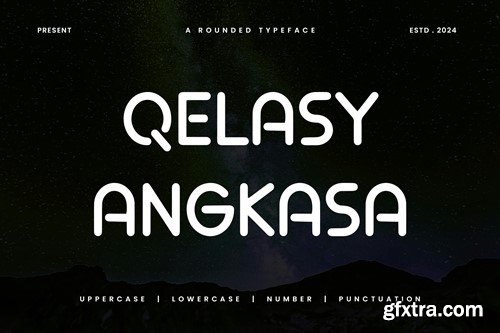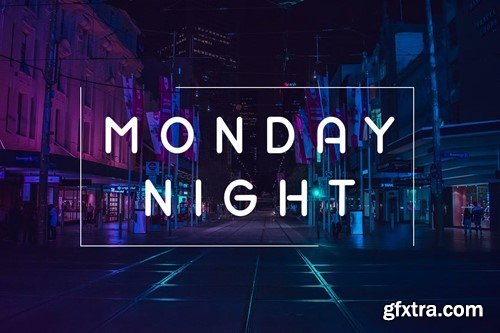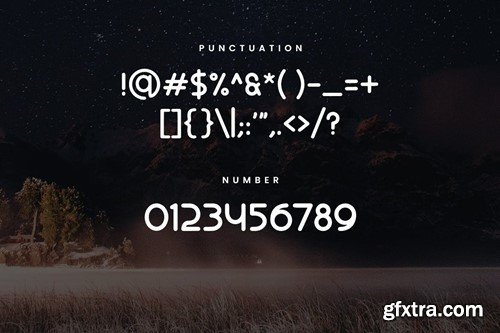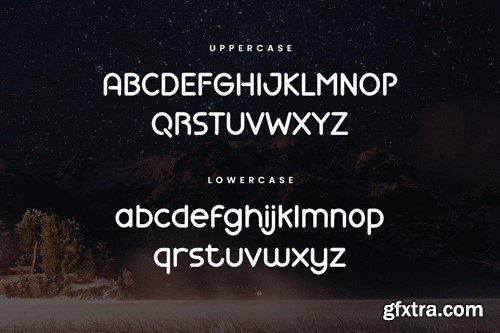
QELASY ANGKASA - 粗.rounded sans 字型2JJPZWP
QELASY ANGKASA - Rounded Sans Typeface
QELASY ANGKASA is a unique display typeface perfect for titles, large text, branding, logotypes & graphic design purposes such as posters, pamphlets, and advertisements. This letter font can be a great choice for creating amazing logos, promotional content, and marketing presentations that can bring uniqueness and freshness at its best. FEATURES TTF/OTF/WOFF Uppercase and Lowercase letters Numbering and Punctuations Support Adobe Illustrator, Adobe Photoshop, Adobe InDesign, also works on Microsoft Word For buyers, thank you for using our font. We hope our work can help you create creative ideas.